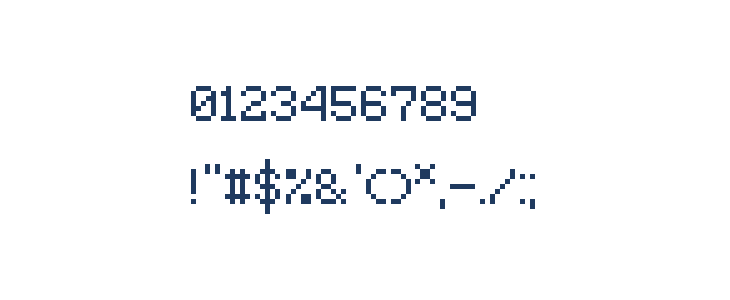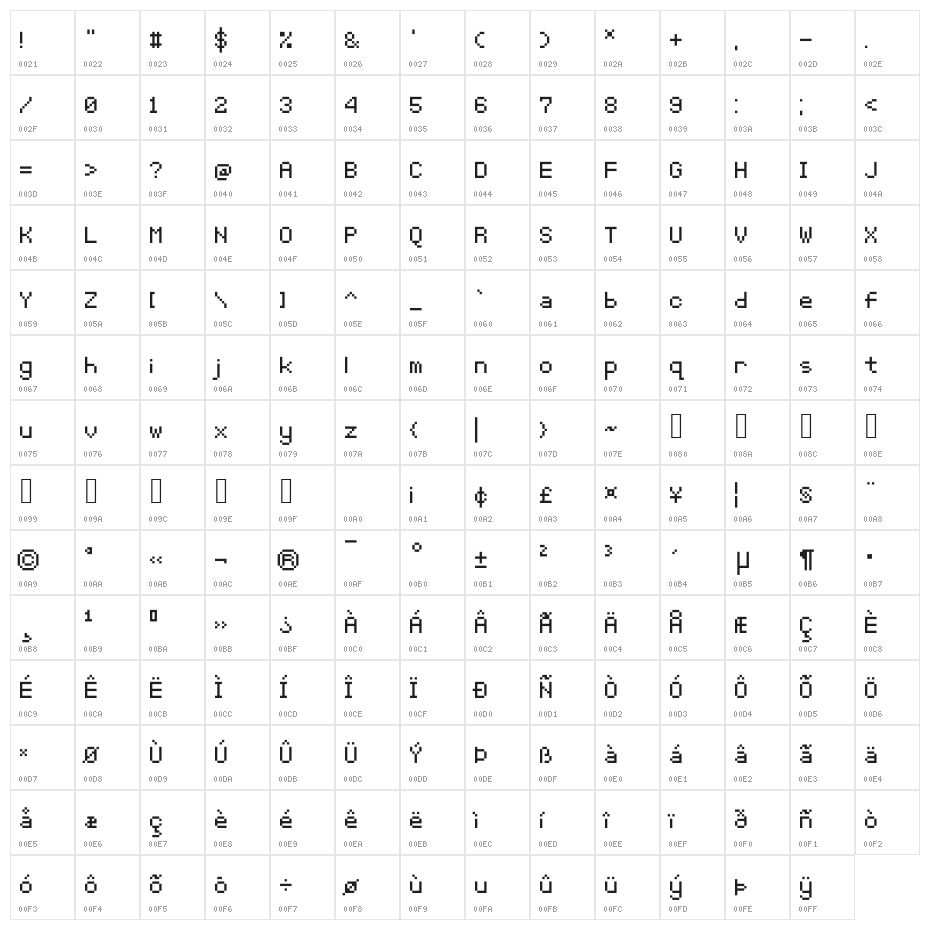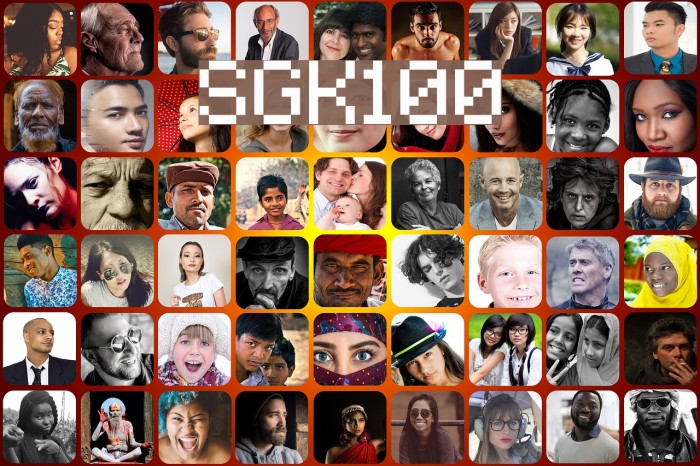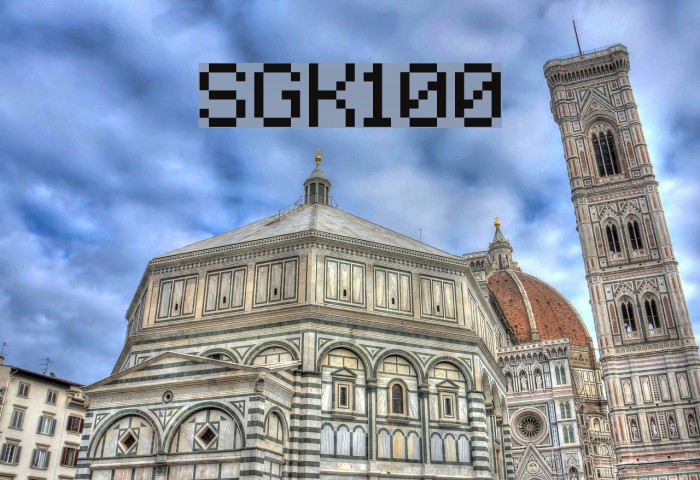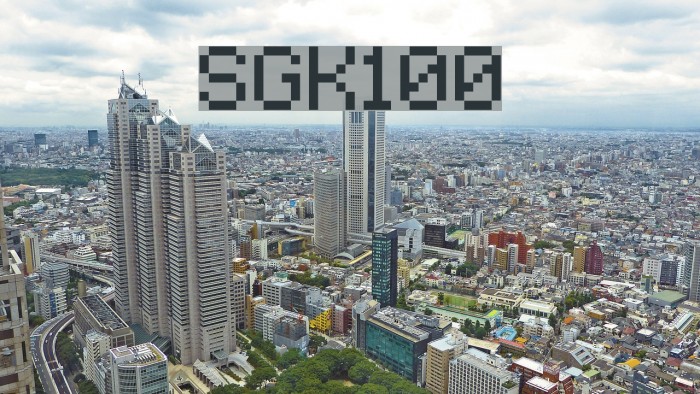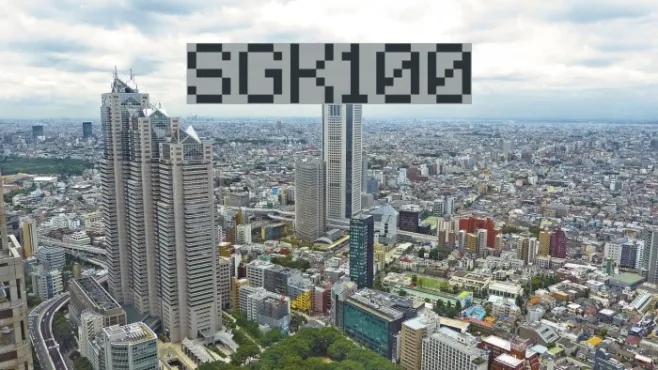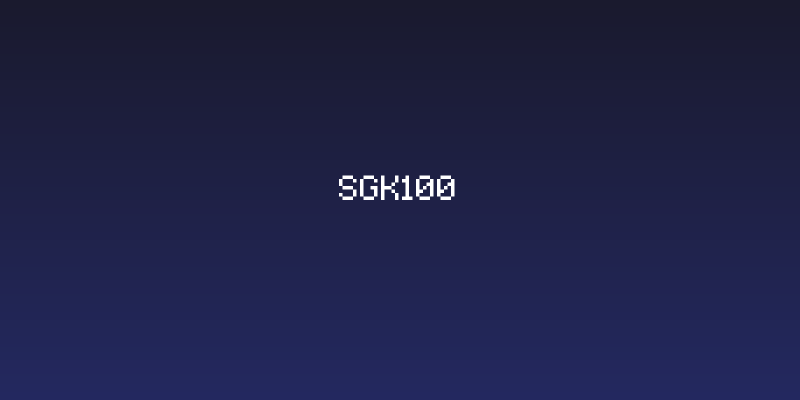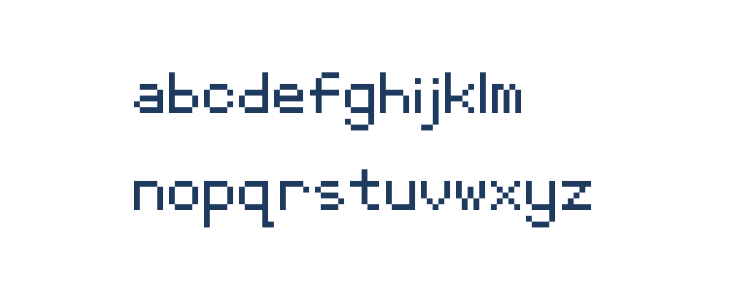
SGK100 Font
SGK100 Description
This font features a pixelated, blocky design reminiscent of early digital and video game typography. Each character is constructed with a grid-like precision, giving it a distinctly retro and technological feel. The uppercase and lowercase letters maintain a consistent height and width, contributing to a uniform appearance. Numbers and special characters follow the same pixelated style, ensuring visual coherence across all elements. The font's geometric structure makes it highly legible at various sizes, though it is particularly striking in larger displays where its unique aesthetic can be fully appreciated.
| Use Case | Headlines, Logos, Digital Art |
| Proposed Projects | Ideal for video game design, tech-themed posters, digital art projects, and retro-style branding. |